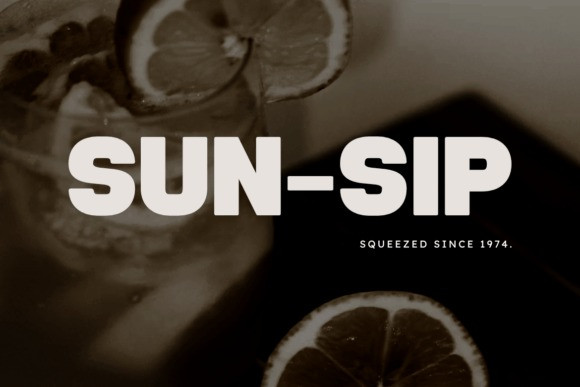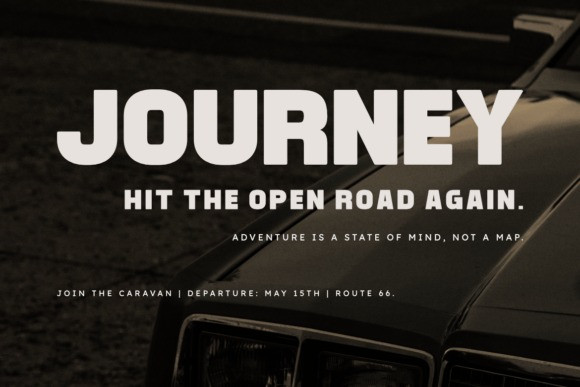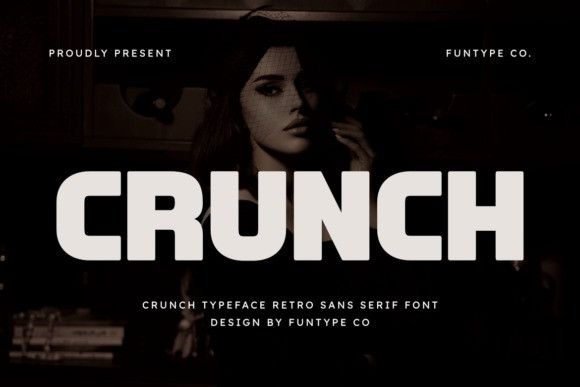
Crunch Font
Crunch Font a striking retro sans serif font that exudes strength and precision. Its robust structure and clean, weighty strokes make it the ultimate choice for impactful headlines, polished vintage brand identities, chic fashion logos, and bold digital posters. Crunch’s sleek, balanced design imbues any creative project with an impactful, professional touch that somehow tenderly whispers of nostalgia. Delivered in both OTF and TTF formats for seamless integration across all design platforms, Crunch is the embodiment of a poised yet potent typographical statement.